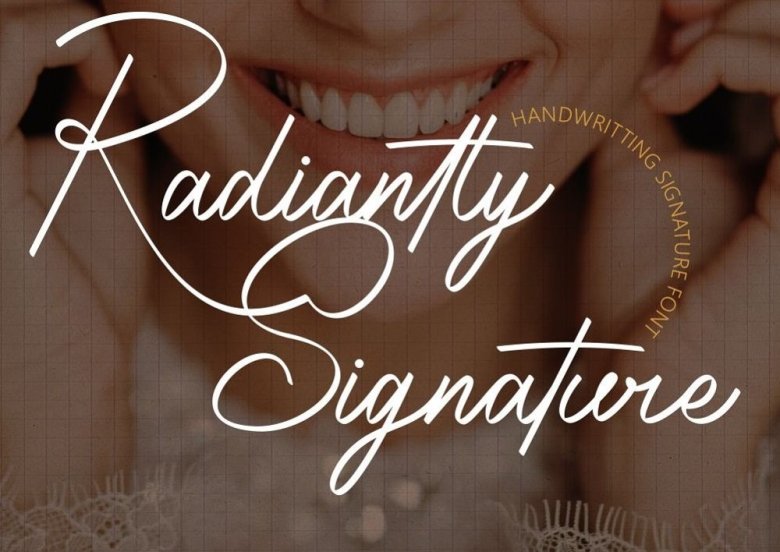
Radiantly Signature Font
This font is born from Handwrite style that combines stylish and modern glyph with an elegant look. Made from font designer named PutraCetol Studio. This font is a beautiful combination of natural, elegance and luxury. This font is very similar to handwriting using a pen so you’ll get natural lettering when using it for your projects.